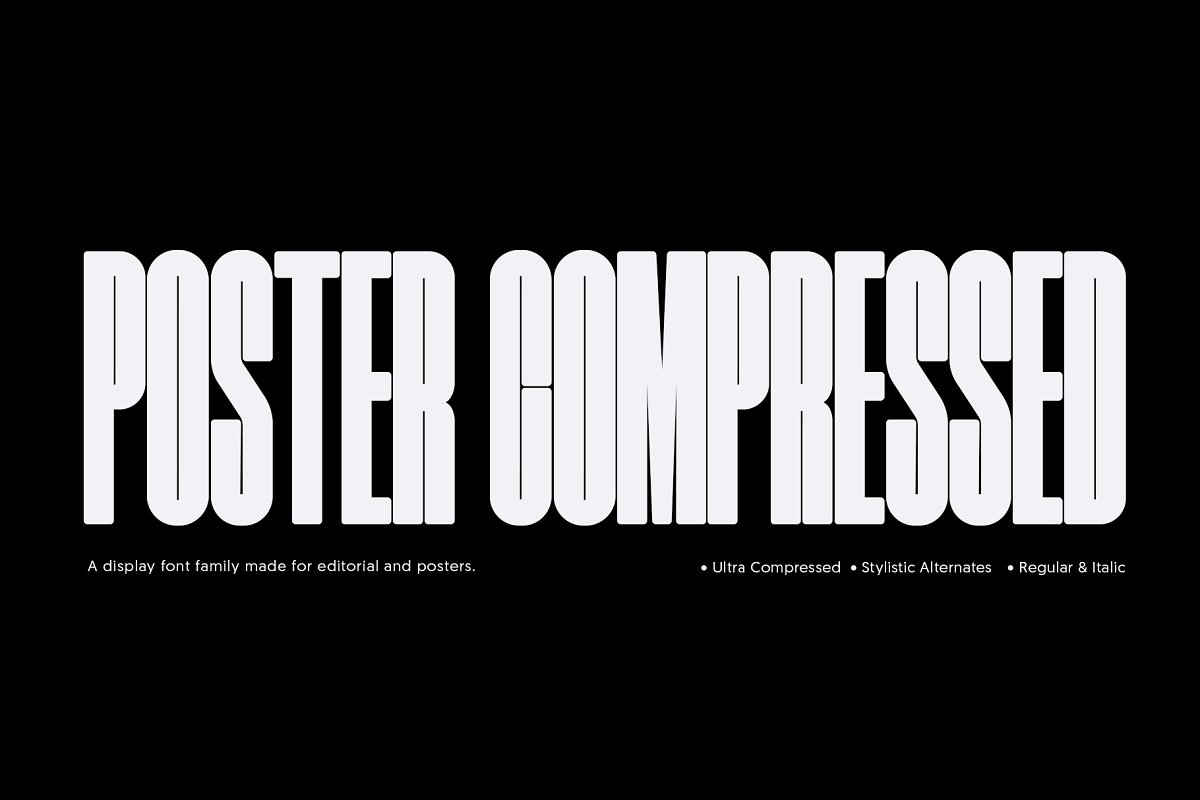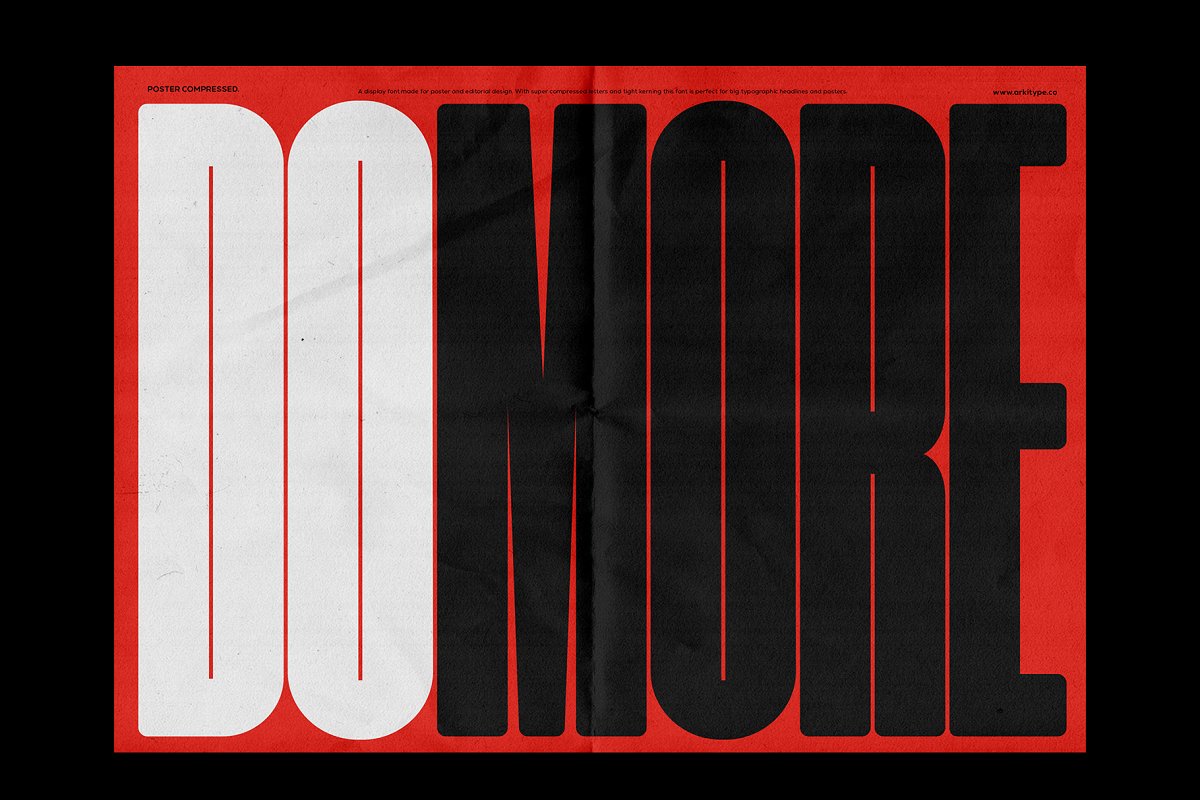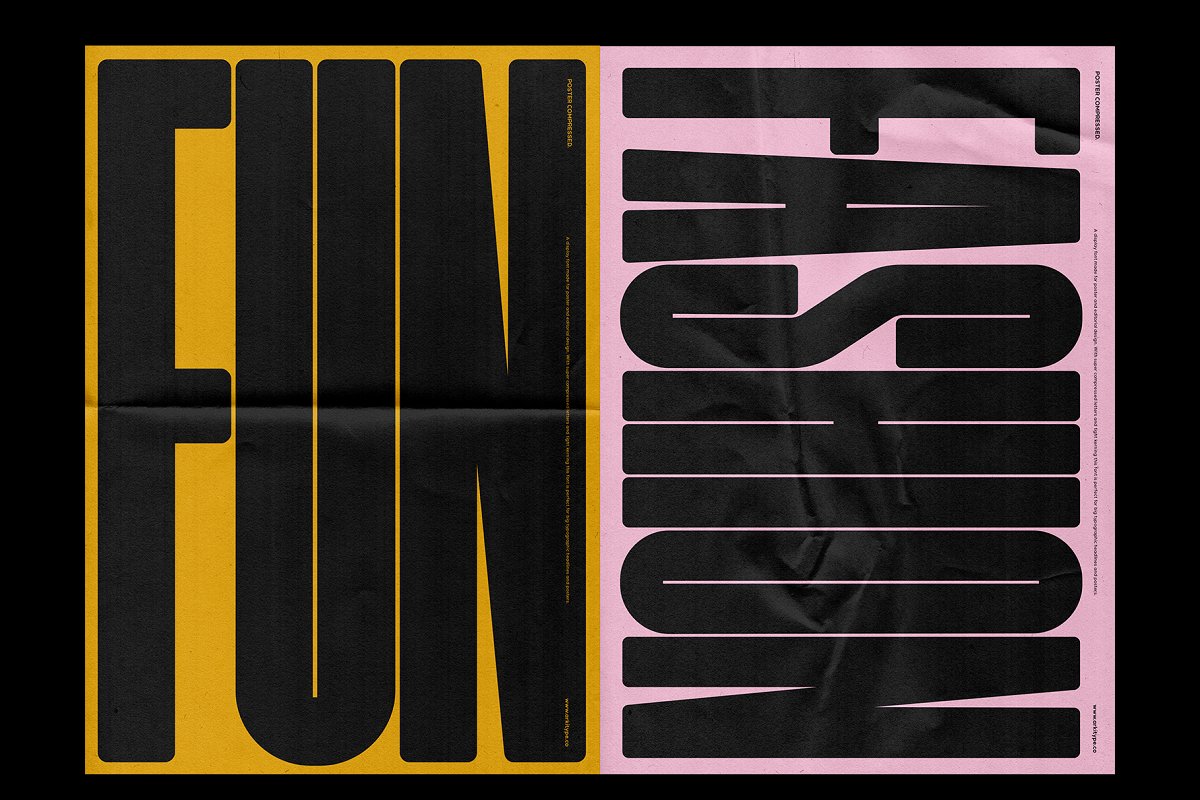
About the Poster Compressed Font
35% OFF Launch offerPoster compressed is a display font made specifically for editorial and posters, This font has a super compressed character set and tight kerning that gives you the ability to create large headlines and copy for typographic poster, This font packs punch when it comes to large copy lines and you’re going to want it in your font arsenal